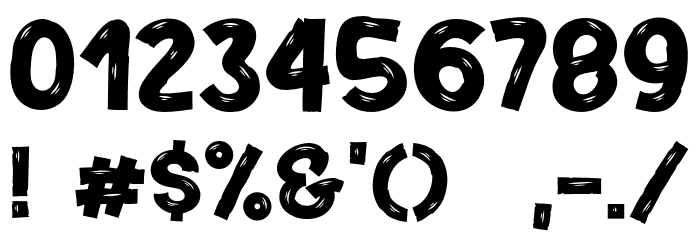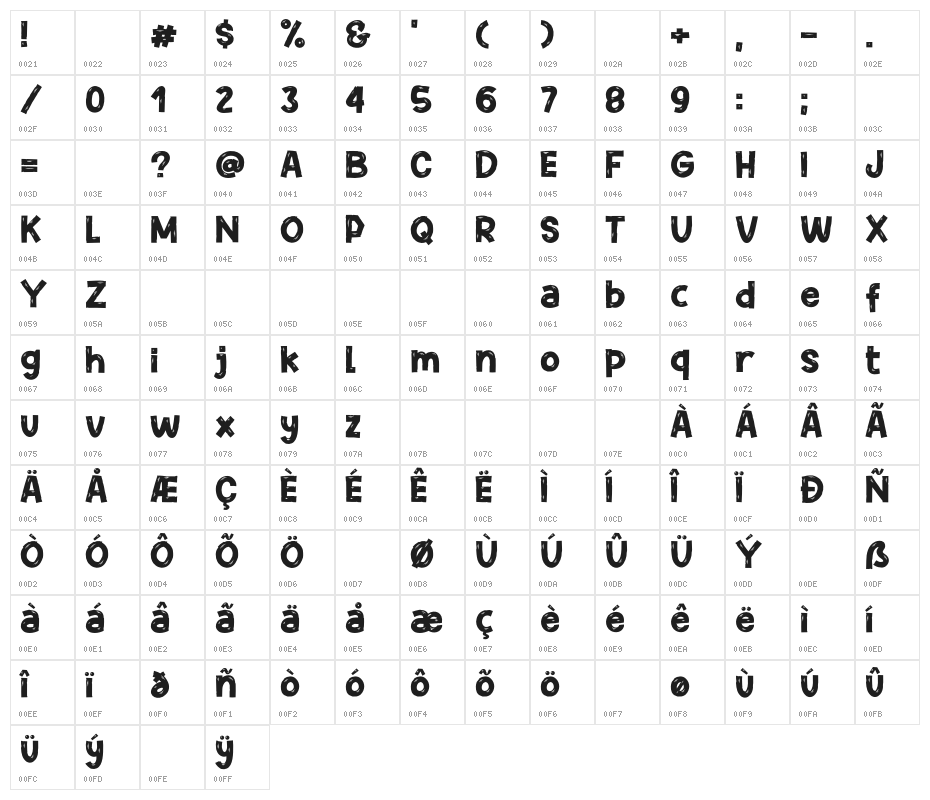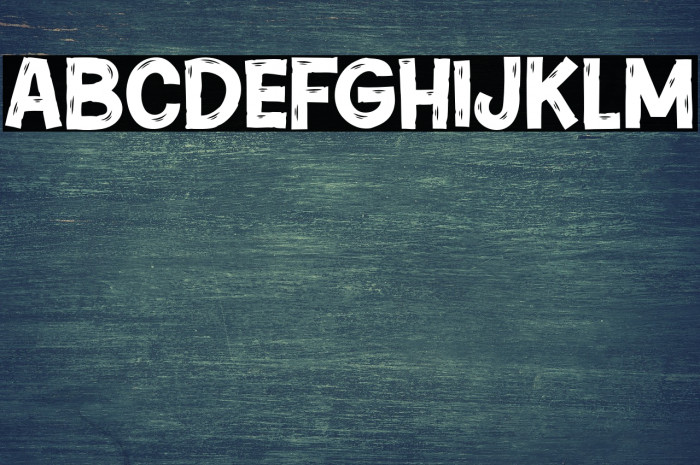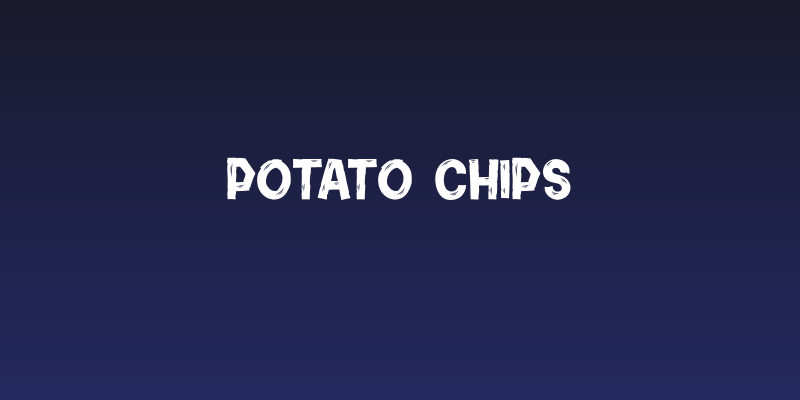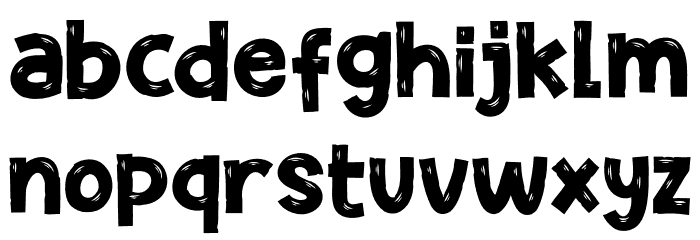
Potato Chips Font
Potato Chips Description
This font features a bold and playful design with a hand-drawn aesthetic. Each character is crafted with irregular strokes, giving it a dynamic and energetic feel. The uppercase and lowercase letters maintain a consistent style, with rounded edges and a slightly uneven baseline, enhancing its casual and informal appearance. The numerals and special characters follow the same artistic approach, making the font suitable for creative and fun projects. Its unique style makes it stand out, perfect for capturing attention in various design contexts.
| Overall Style | Playful, Hand-drawn |
| Proposed Projects | Ideal for children's books, playful branding, posters, and creative social media graphics. |